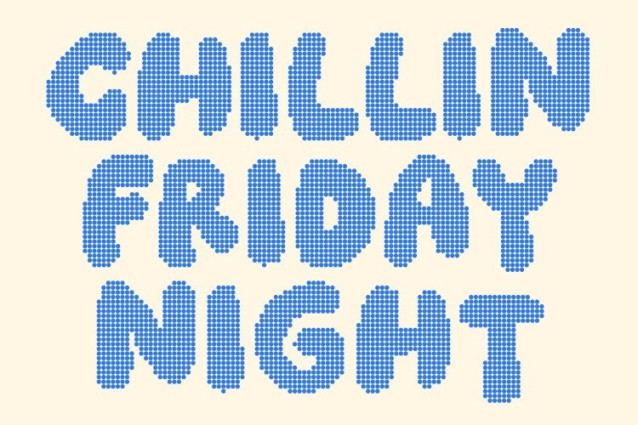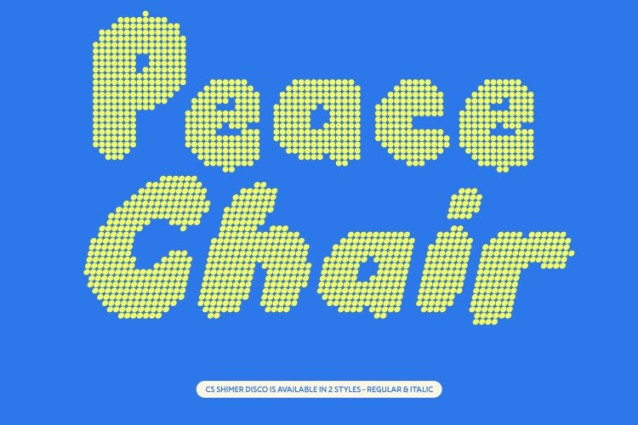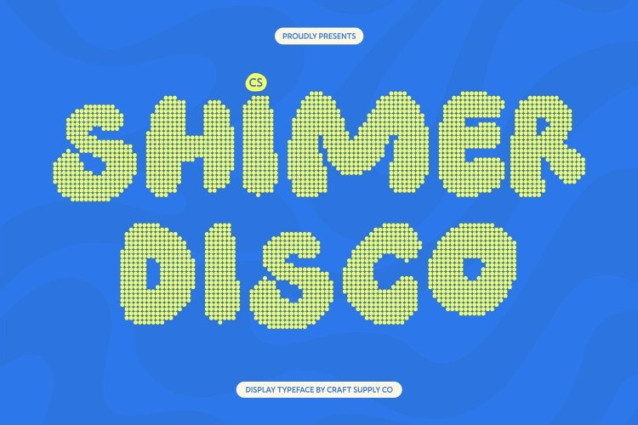
CS Shimer Disco Font
CS Shimer Disco Font – This font transforms the cheerful bubble style into a lively dotted display. Built from playful dot patterns, the rounded letterforms now shimmer like dance-floor lights while keeping their soft, bouncy charm. The result is a joyful font that feels energetic, friendly, and instantly eye-catching.
Funky, Cute, and Full of Sparkling Energy
The funky curves and adorable proportions remain, now enhanced with a festive dotted texture that adds rhythm and excitement. This sparkling detail amplifies the youthful spirit of the font, making every word feel animated, lively, and full of celebration.
Perfect for Kids’ Designs and Playful Themes
Ideal for children’s books, educational materials, toy packaging, and kid-focused branding, this font brings warmth and happiness to any layout. The dotted bubble shapes feel safe, approachable, and imaginative perfect for visuals that aim to inspire curiosity and fun.
Great for Books, Campaigns, and Creative Branding
From book titles and posters to playful logos and interactive media, this font ensures your message stands out with charm and personality. It delivers a vibrant mix of bold bubble shapes and disco sparkle, making designs feel bright, memorable, and full of life.